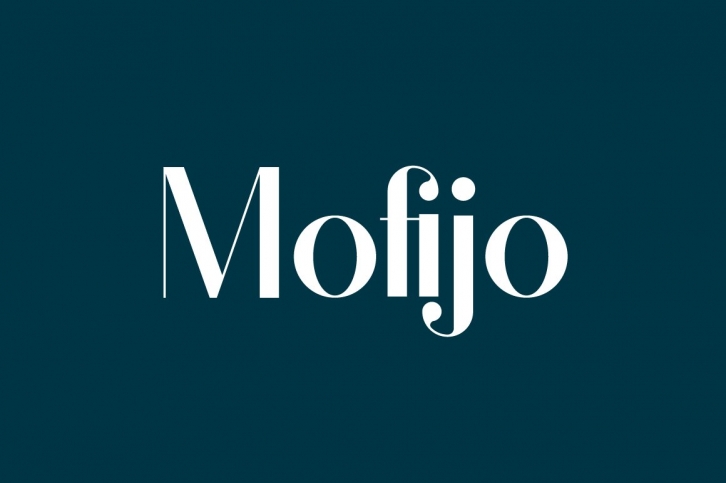
Mofijo is a trendy and unique font with an authentic style. It was designed by AmruID and it's a great choice for creative people who need such a font. It was released on July 21, 2020 and the file size is 20.71 MB. Mofijo will add an organic vibe to any design idea!